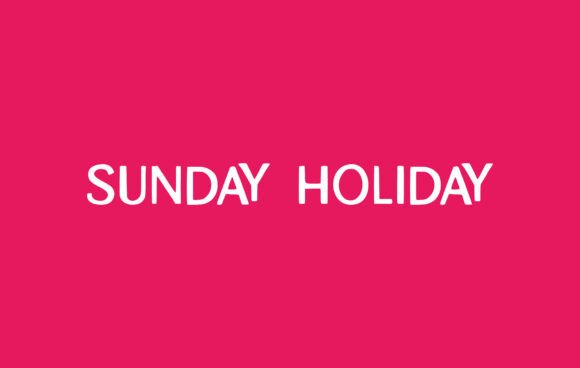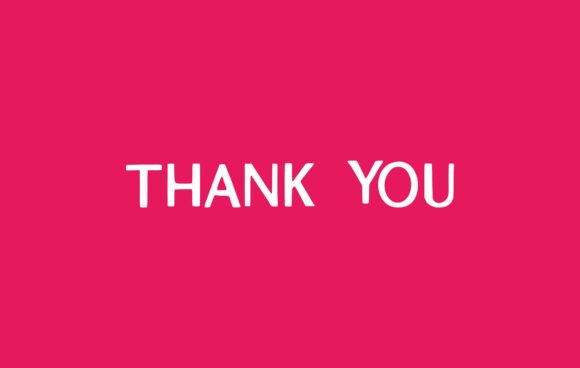
Cybernetic Flow Font: Elevate Your Designs with a Romantic Touch
In the realm of digital design, fonts play a pivotal role in conveying messages, evoking emotions, and creating lasting impressions. Among the myriad of fonts available, the Cybernetic Flow font stands out as a unique and captivating choice for designers and crafters alike. This authentic handwritten font, infused with a romantic touch, is poised to revolutionize your creative projects, making them more engaging and aesthetically pleasing.
The Essence of Cybernetic Flow Font
Cybernetic Flow font is not just another addition to the vast sea of digital fonts; it’s an expertly crafted typeface designed to capture hearts and imaginations. Its authenticity lies in its handwritten essence, which brings a personal and intimate feel to any design. Whether you’re working on magazine headlines, social media graphics, branding materials, wedding invitations, or greeting cards, this font is versatile enough to make your projects stand out.
Key Features of Cybernetic Flow Font
- Legibility and Versatility: One of the standout features of the Cybernetic Flow font is its exceptional legibility. This makes it an ideal choice for both title and body text, offering flexibility in a wide range of design applications.
- Romantic and Aesthetic Appeal: The font’s romantic touch adds an element of elegance and sophistication to your designs. Its aesthetic appeal is undeniable, making it perfect for projects that require a touch of class and refinement.
- Cybernetic Twist: The term “cybernetic” might suggest a modern, tech-savvy approach, and this font does not disappoint. It blends traditional handwritten elements with a futuristic vibe, creating a unique visual experience.
Applications of Cybernetic Flow Font
The versatility of the Cybernetic Flow font makes it suitable for a myriad of design projects. Here are some areas where this font can make a significant impact:
- Magazine Headlines: Grab the attention of your readers with captivating headlines that exude style and sophistication.
- Social Media Graphics: Elevate your social media presence with visually appealing graphics that are sure to engage your audience.
- Branding: Create a lasting impression with brand logos and marketing materials that showcase elegance and professionalism.
- Wedding Invitations and Cards: Add a touch of romance and personalization to your wedding invitations, greeting cards, and other stationery.
Why Choose Cybernetic Flow Font?
In a market flooded with generic fonts, the Cybernetic Flow font offers a breath of fresh air. Its unique blend of traditional and modern elements makes it a valuable asset for designers looking to push the boundaries of creativity. Here are a few reasons why you should consider adding this font to your collection:
- Uniqueness: Stand out from the crowd with a font that is both distinctive and memorable.
- Emotional Connection: The romantic touch of the Cybernetic Flow font helps create an emotional connection with your audience, making your designs more impactful.
- Time-Saving: With its legibility and versatility, you can use this font across various projects, saving you time and effort in selecting different fonts.
The Cybernetic Flow font is more than just a typeface; it’s a tool that can elevate your designs to new heights. Its unique blend of romance, aesthetics, and modernity makes it an indispensable asset for designers and crafters. Whether you’re looking to make a statement with your branding, add a touch of elegance to your wedding invitations, or simply explore new creative avenues, this font is sure to inspire and impress. Embrace the Cybernetic Flow font in your next project and experience the transformative power of typography.